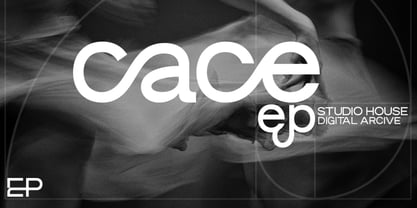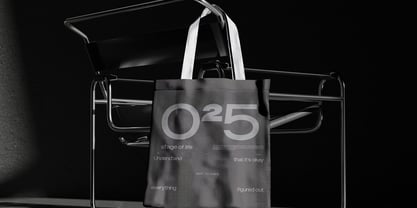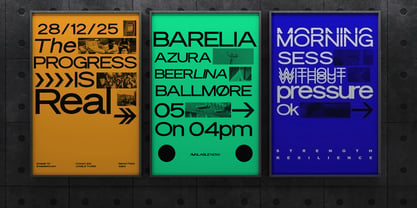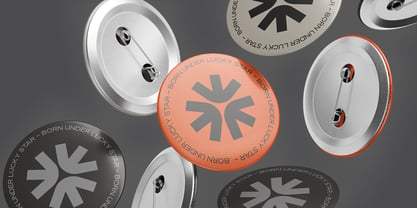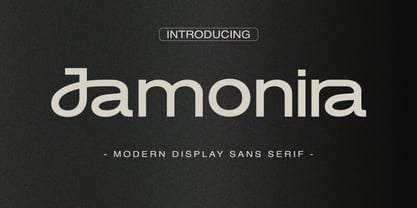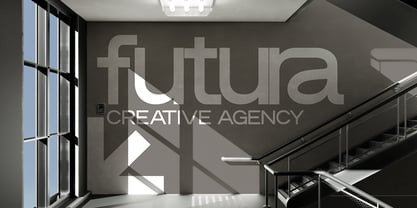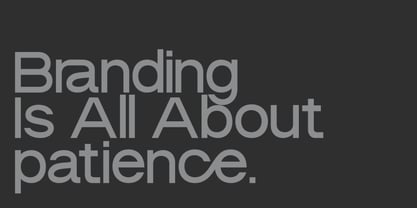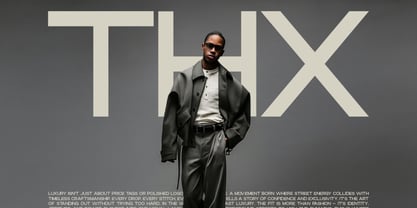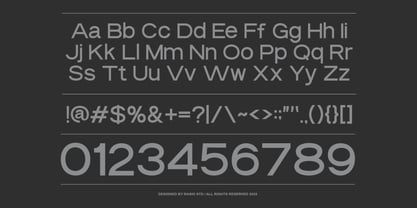
Jamonira
by Rasio Studio
The Jamonira Font Family was designed by Fajar Indra and published by Rasio Studio. Jamonira contains 1 styles. More about this family
Jamonira is a modern display sans serif typeface designed with clean geometry and refined proportions. The font features balanced letterforms, smooth curves, and stylish ligatures that create a sophisticated yet contemporary visual presence. Jamonira is ideal for modern design projects that require a clean and sophisticated typographic presence. Its balanced proportions and stylish display character make it suitable for fashion branding, editorial layouts, modern advertising, and premium product packaging.
Designers: Fajar Indra
Foundry: Rasio Studio